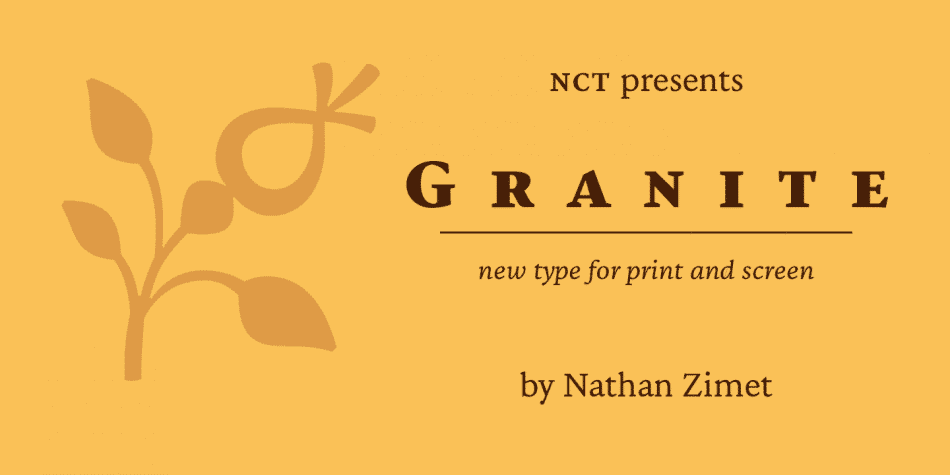
NCT Granite Font Family designed by NCT. NCT Granite brings the shapes of Renaissance type into the modern world with a robust and functional typeface designed to work on both screen and print. Its italic is about as wide as the roman, making it very easy to read in long text…